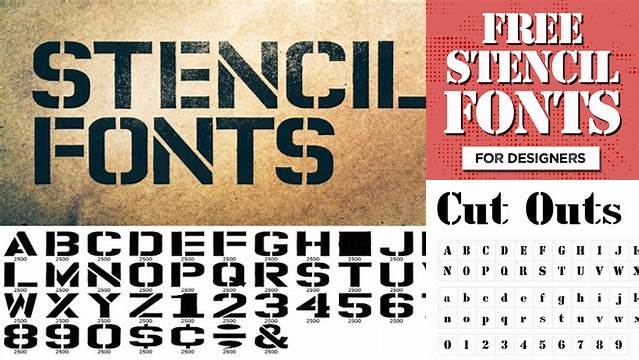
Free Stencil Font Downloads: Your Go-To Guide
Hey guys! Are you looking to add a touch of urban flair, edgy style, or a dash of industrial chic to your designs? Well, look no further! In this comprehensive guide, we'll dive deep into the awesome world of stencil fonts, specifically focusing on how you can get your hands on a free download stencil font. We'll cover everything from the history and aesthetics of stencil fonts to where you can find the best freebies, how to use them effectively, and even some cool design ideas to get your creative juices flowing. So, buckle up, grab your favorite design software, and let's get started!
What are Stencil Fonts, and Why Are They So Popular?
Stencil fonts have a unique history and aesthetic appeal, making them a popular choice for various design projects. These fonts are characterized by their distinctive bridges or breaks, which are the small gaps that allow the letters to be connected when cut out of a solid material, such as metal or wood. This design feature originated from the practical need to create easily reproducible lettering using stencils. Originally, stencils were used for labeling and marking on different surfaces, including military equipment and industrial products. The design allowed paint or ink to pass through the cut-out areas, creating a clear and easily recognizable image. Over time, these utilitarian fonts gained popularity for their distinctive look, becoming a staple in areas of design, from urban art to branding. The bold and often blocky appearance of stencil fonts conveys a sense of strength, resilience, and even a touch of rebellion, which makes them a great choice for headlines, posters, and logos, where the goal is to grab attention and make a statement. It's a style that's both functional and visually striking, embodying an artistic vibe that's hard to ignore.
Stencil fonts stand out for their versatile nature. They are awesome because they can easily blend into various design styles. This includes styles such as vintage designs, modern looks, and even designs that are inspired by military themes. The distinct structure of each character allows designers to achieve unique visual effects. This can be achieved by playing with contrast, color, and textures. This allows designers to create stunning visuals. Their bold and often geometric structure also makes them ideal for creating clear and concise messages. That is why they are a favorite choice for everything, from signage to digital media. The beauty of stencil fonts lies not only in their aesthetics but also in their inherent ability to convey a specific mood and personality. It's a design choice that speaks volumes. Using them can quickly send messages of professionalism, boldness, or an understated attitude. This versatility makes them a valuable asset in any designer's toolkit. It's about making your design memorable and impactful! The demand for stencil fonts is constantly increasing! Their continuous use in various forms of media makes them a must-have for any designer looking to create timeless designs. The demand for these fonts has risen due to their unique appeal to a wide range of aesthetics and purposes.
The History and Evolution of Stencil Fonts
The history of stencil fonts is intertwined with the practical needs of industrial and military applications. The earliest forms of stencils were simple templates cut from materials like metal or wood. These stencils were used to quickly mark items and equipment with clear and easily reproducible lettering. The need for durability and ease of use dictated the design of these fonts, leading to the creation of the bridges that are characteristic of stencil fonts. Over time, as technology advanced, so did the design of stencils. With the advent of digital technology, designers could experiment with more complex designs. They could explore the visual possibilities of the stencil style in ways that were not possible with traditional methods. This evolution resulted in a huge range of stencil fonts, from the classic, utilitarian styles to modern and artistic interpretations. The rise of digital design tools has also played a major role in the increased popularity and availability of stencil fonts. These tools have made it easier for designers to create and customize stencil fonts. This has made them more accessible to a wider audience. Digital platforms have also enabled the easy distribution and sharing of these fonts, which has contributed to their widespread use. Therefore, stencil fonts have a rich history that has evolved from purely functional origins to a versatile design element.
Where to Find Free Download Stencil Fonts